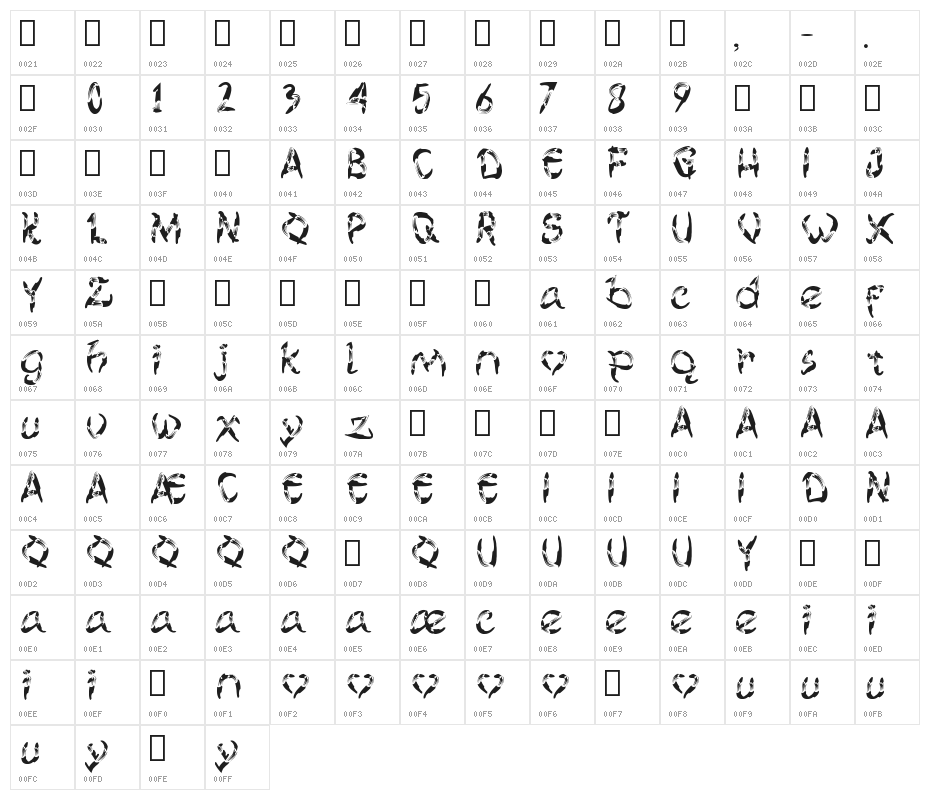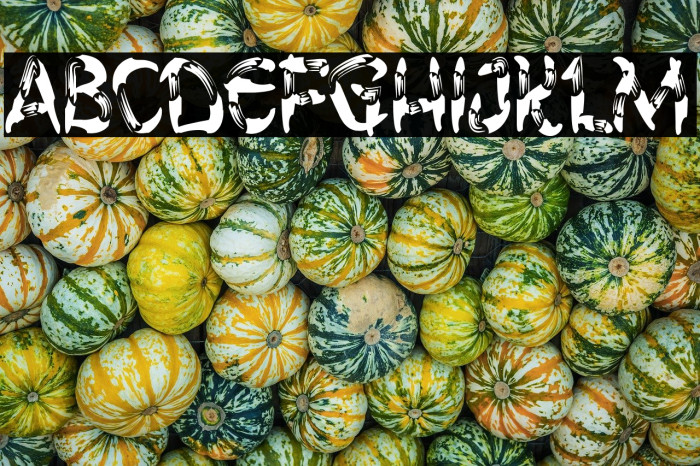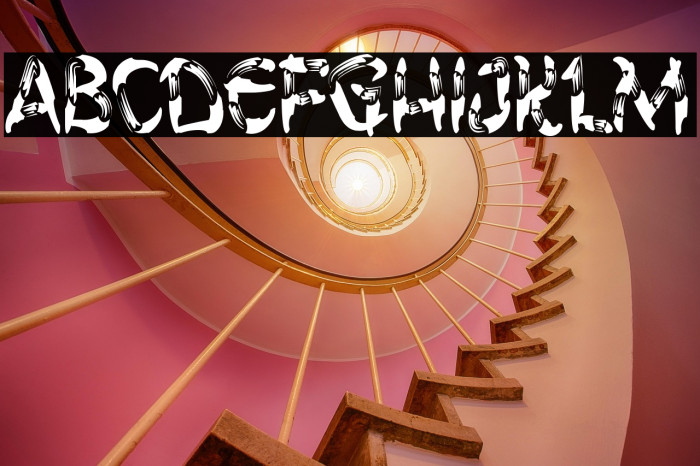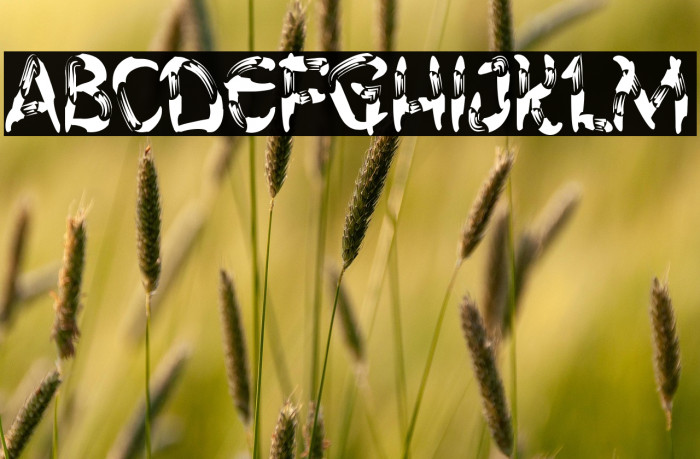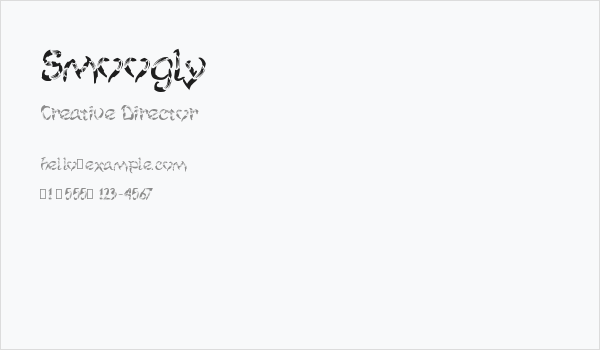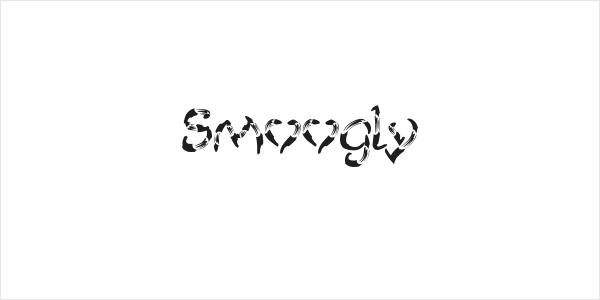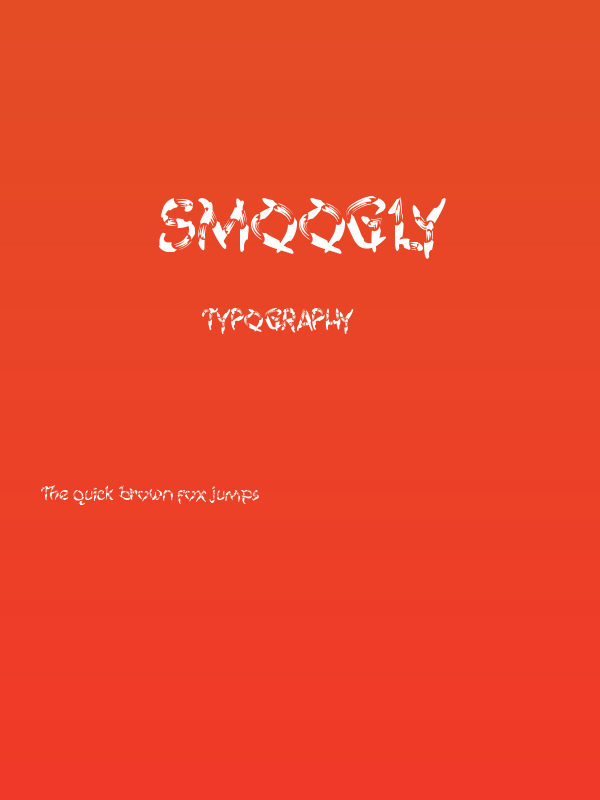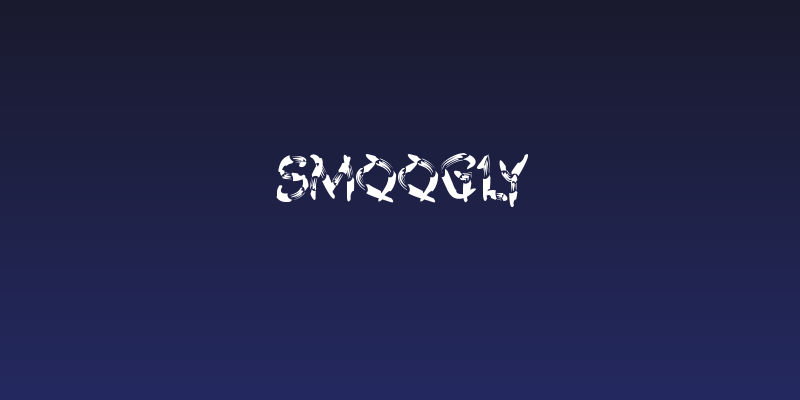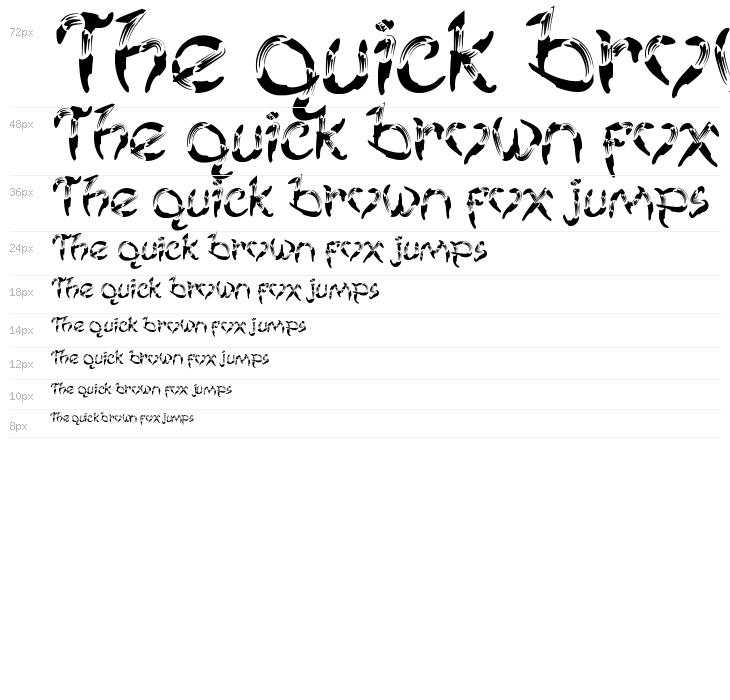
Smoogly Font
Smoogly Description
This font features a highly decorative and artistic style, characterized by bold, swirling strokes that create a sense of movement and energy. The letters are uniquely crafted with a combination of thick and thin lines, giving them a dynamic and textured appearance. The uppercase and lowercase letters maintain a consistent design theme, while the numbers and special characters follow suit with the same artistic flair. This font is visually striking and commands attention, making it ideal for creative and expressive design projects.
| Proposed Projects | Ideal for artistic posters, album covers, creative branding, and eye-catching headlines. |